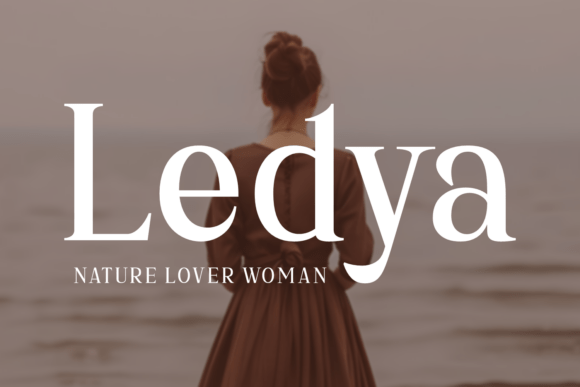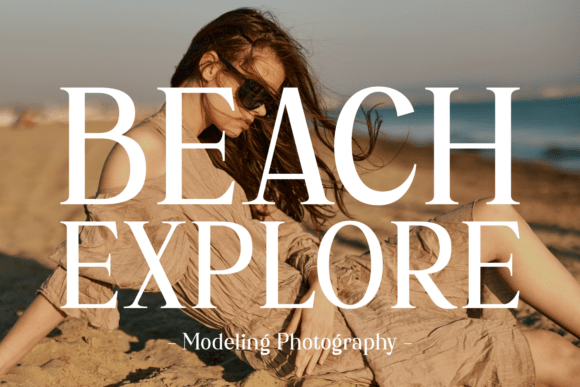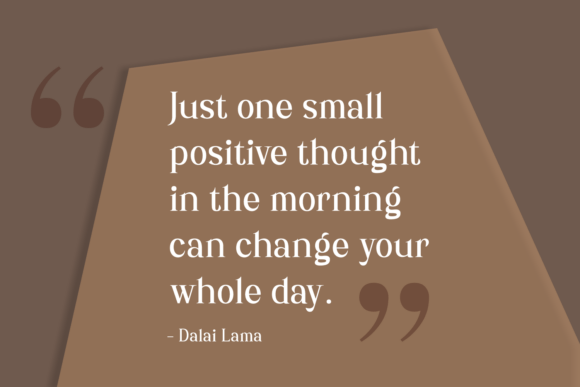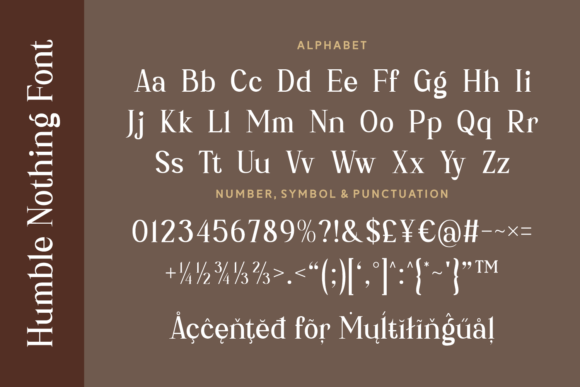
Introduction to Humble Nothing Font
Have you ever stared at a blank page, waiting for the perfect font to bring your creative vision to life? That’s exactly what happened to many designers who discovered the Humble Nothing Font. This modern serif font has been making waves in the design community with its unique blend of tradition and contemporary flair.
What sets Humble Nothing Font apart is its understated elegance, making it the perfect choice for designers who value both simplicity and sophistication. Whether you’re working on a high-quality branding project or creating an invitation for a special occasion, Humble Nothing Font is a valuable design resource that can elevate your work to the next level.
Key Features of Humble Nothing Font
- High-Quality Design: The Humble Nothing Font is a high-quality design resource ideal for creative projects requiring a unique and elegant touch.
- Perfect for Logos and Branding: The Humble Nothing Font is ideal for creating logos, branding materials, and other visual identity elements that require a touch of sophistication.
Honest Review: Humble Nothing Font
I recently had the chance to experiment with the Humble Nothing Font for a creative project, and I must say, it’s been a game-changer. This high-quality font is perfect for designers who need a versatile and elegant design resource.
- ✨ Unique design: The Humble Nothing Font features a beautiful, modern design that’s perfect for any project.
One thing that stood out to me was the font’s incredible versatility. I was able to use it for a wide range of creative projects, from logos to social media graphics.
However, I did encounter some limitations. The font is only available in a few weights, which may limit its use in more complex design projects. Additionally, the font’s design can be a bit too minimalist for some tastes.
Overall, I’m thoroughly impressed with the Humble Nothing Font. Its high-quality design, free download, and transparent background make it an excellent choice for any designer. While it may have some limitations, I believe it’s a valuable addition to any design resource library.
The Humble Nothing Font is ideal for various design projects, including branding, marketing materials, and digital art. Its high quality and versatility make it a valuable design resource for both personal and professional projects.